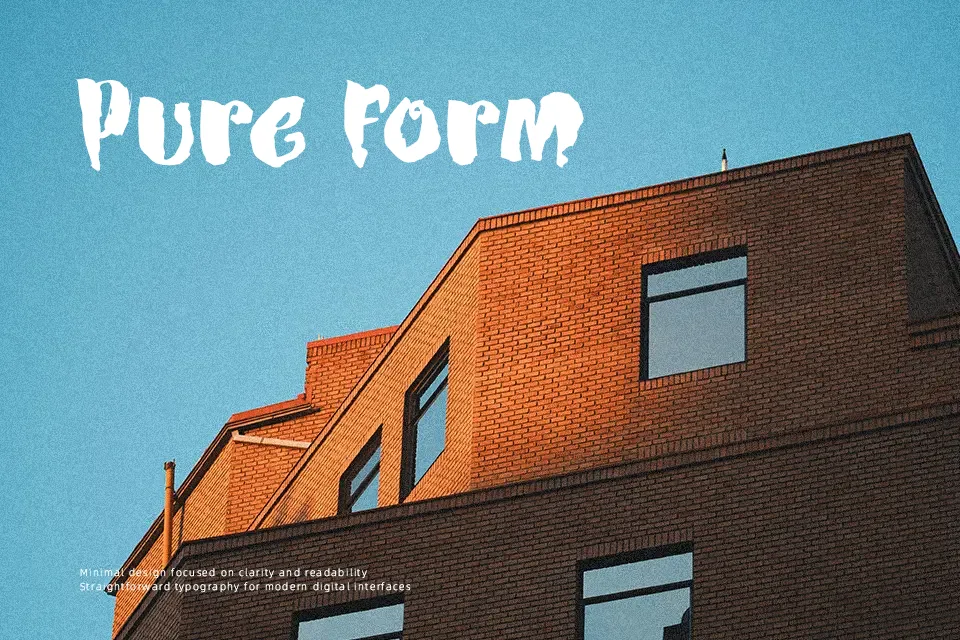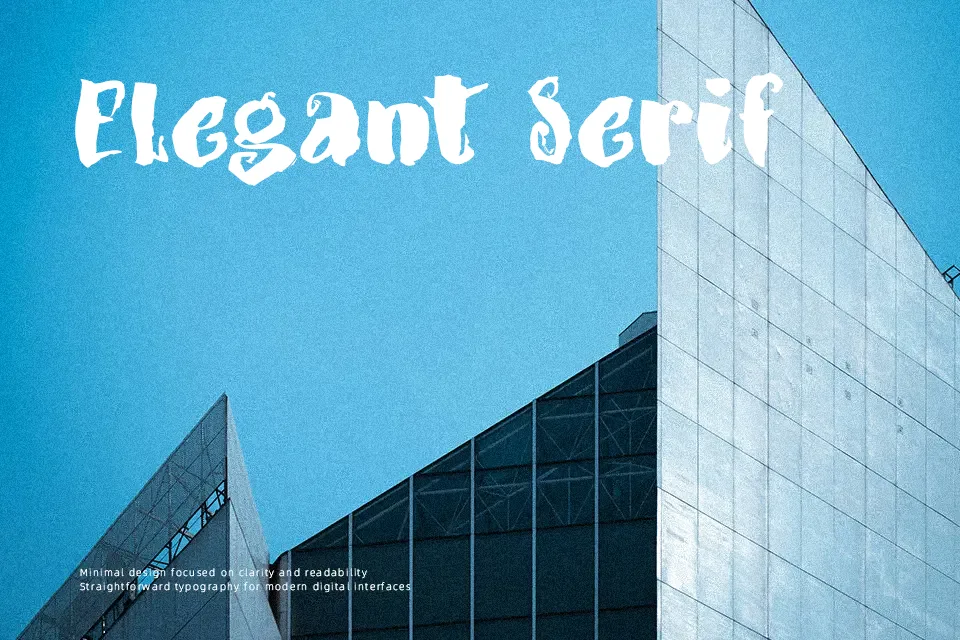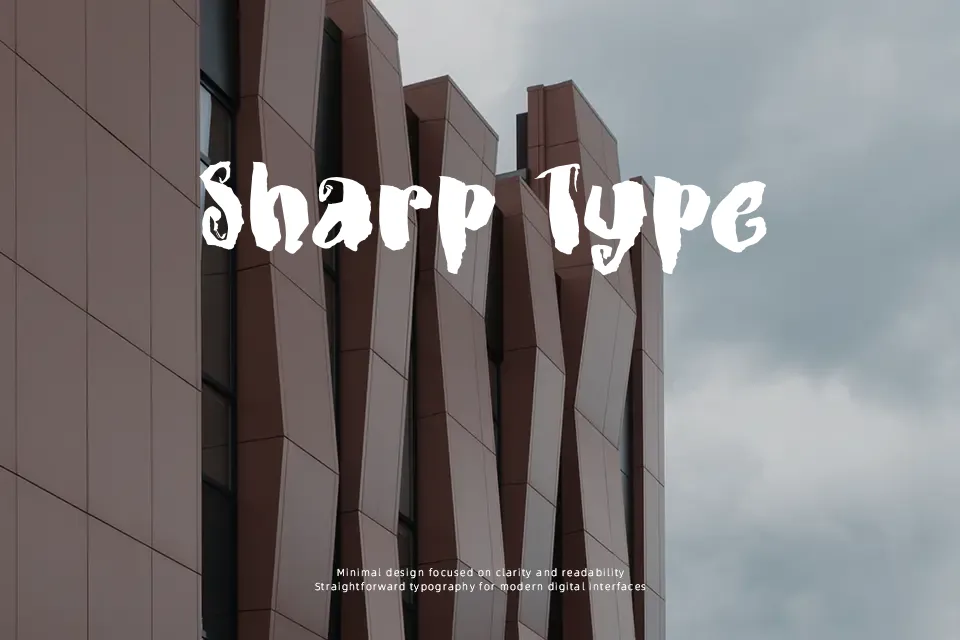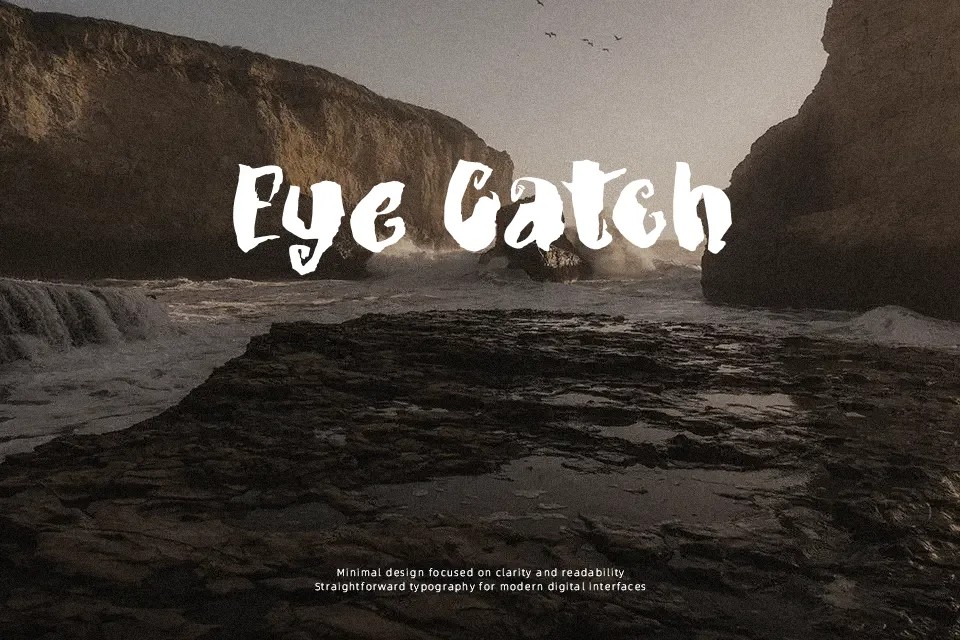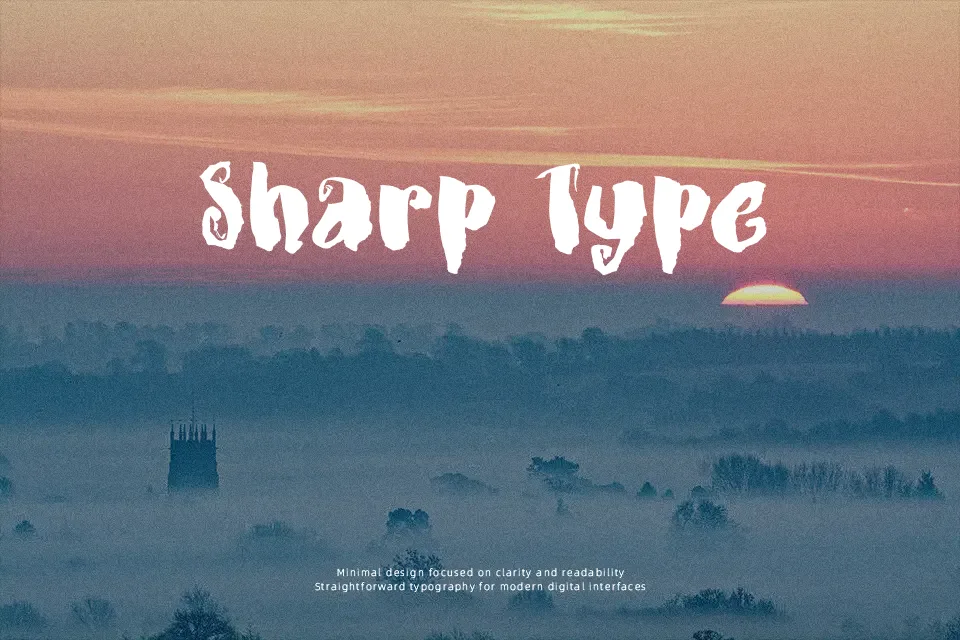
DK Dragonblood Font
Designed by Hanoded
DK Dragonblood is a distressed blackletter-style display font with thick, uneven strokes, sharp inner cuts, and a dense silhouette that gives words a scorched, hand-forged feel. The spacing is fairly tight, so it carries more impact in short phrases than in long lines. It has a theatrical, fantasy-driven tone that works well on album covers, Halloween graphics, book titles, or poster headlines that need a darker voice. In my view, it works best when the layout gives it room and contrast. For branding, interfaces, or anything that needs clean readability, it starts to feel too textured and heavy.
fantasy title artwork
metal or gothic posters
dark event graphics
themed game headings
body text
clean corporate branding
small mobile UI
long editorial layouts
Perfect for gaming, halloween, and headline, with a ancient and blackletter style.